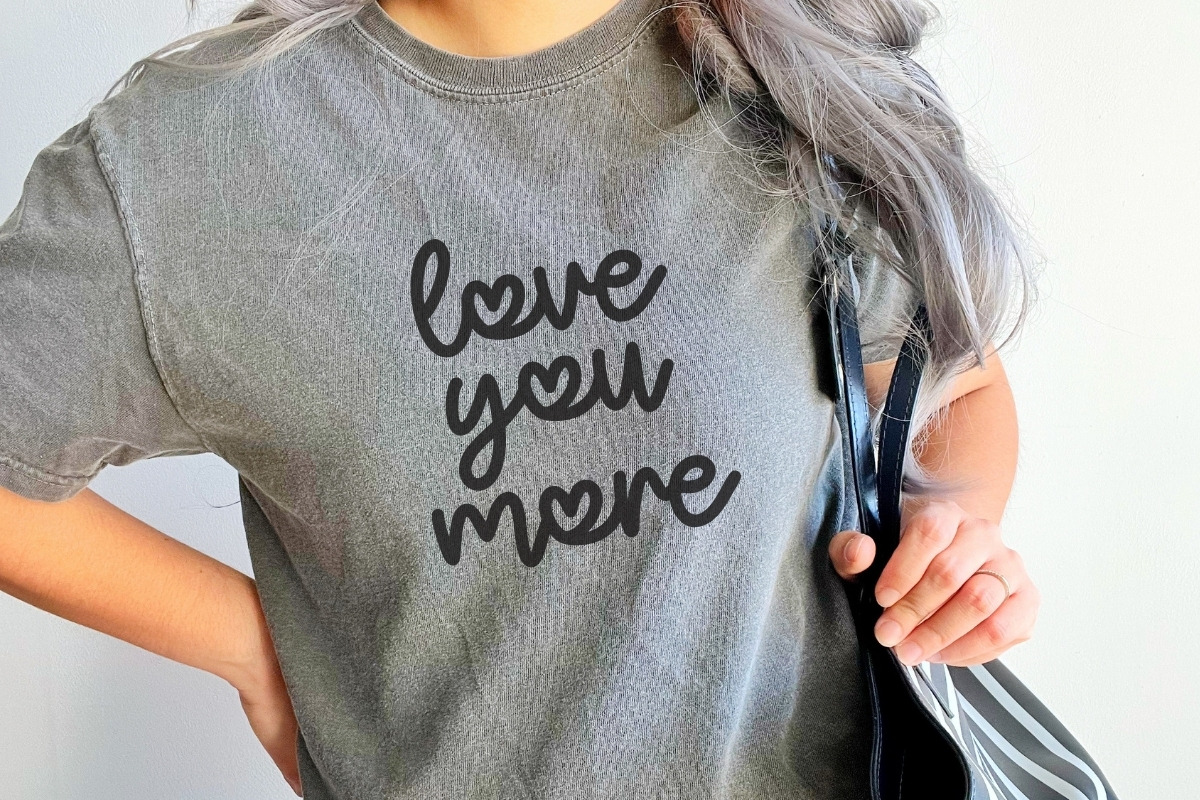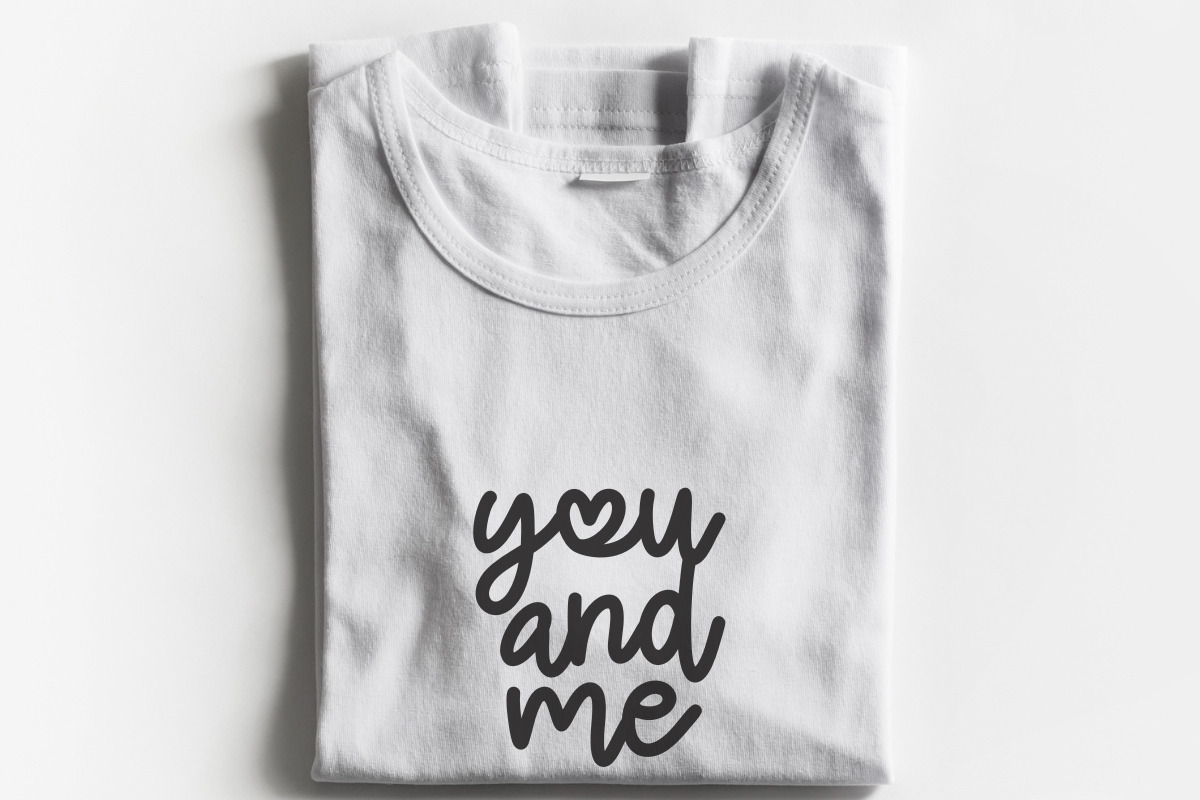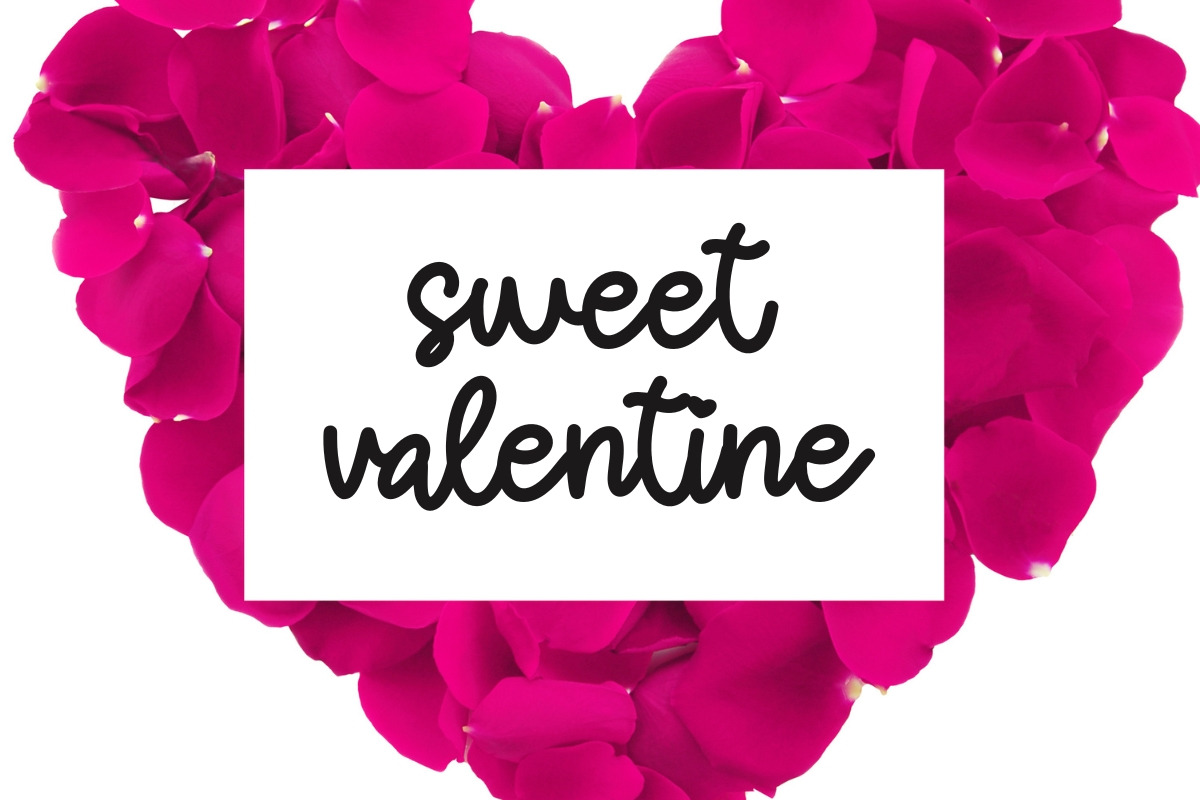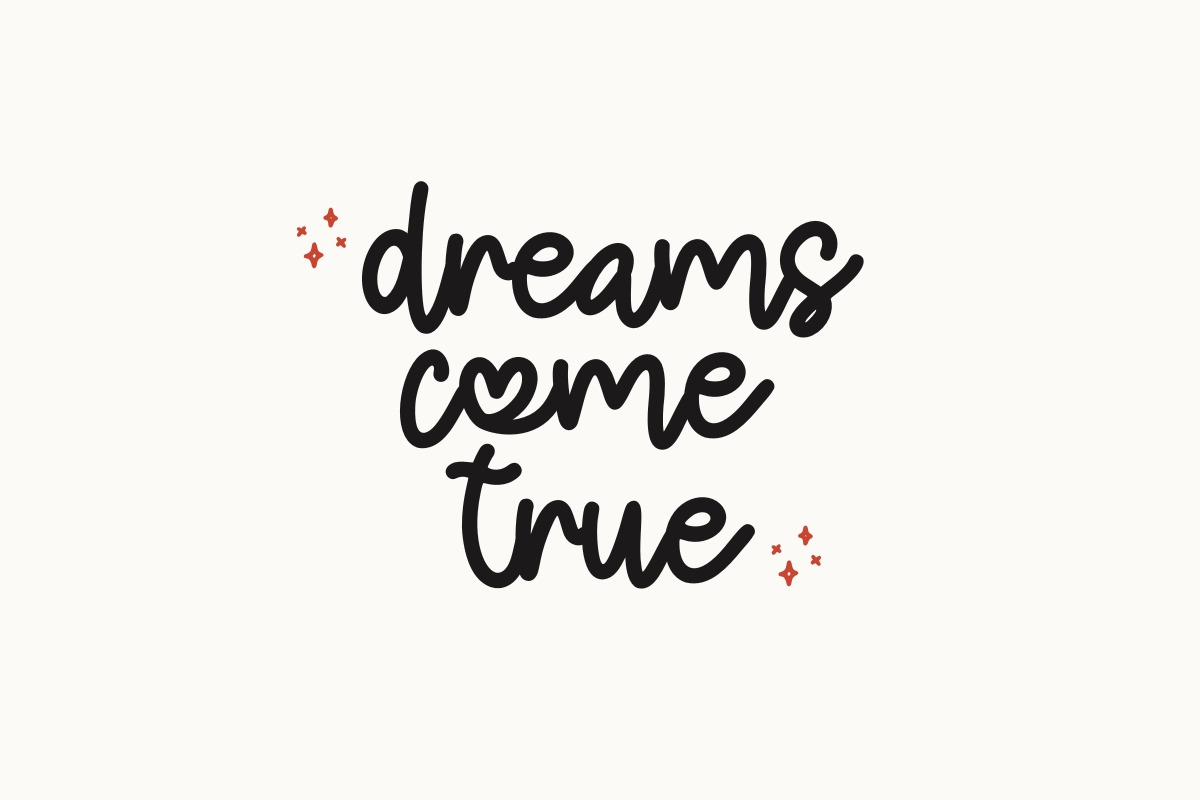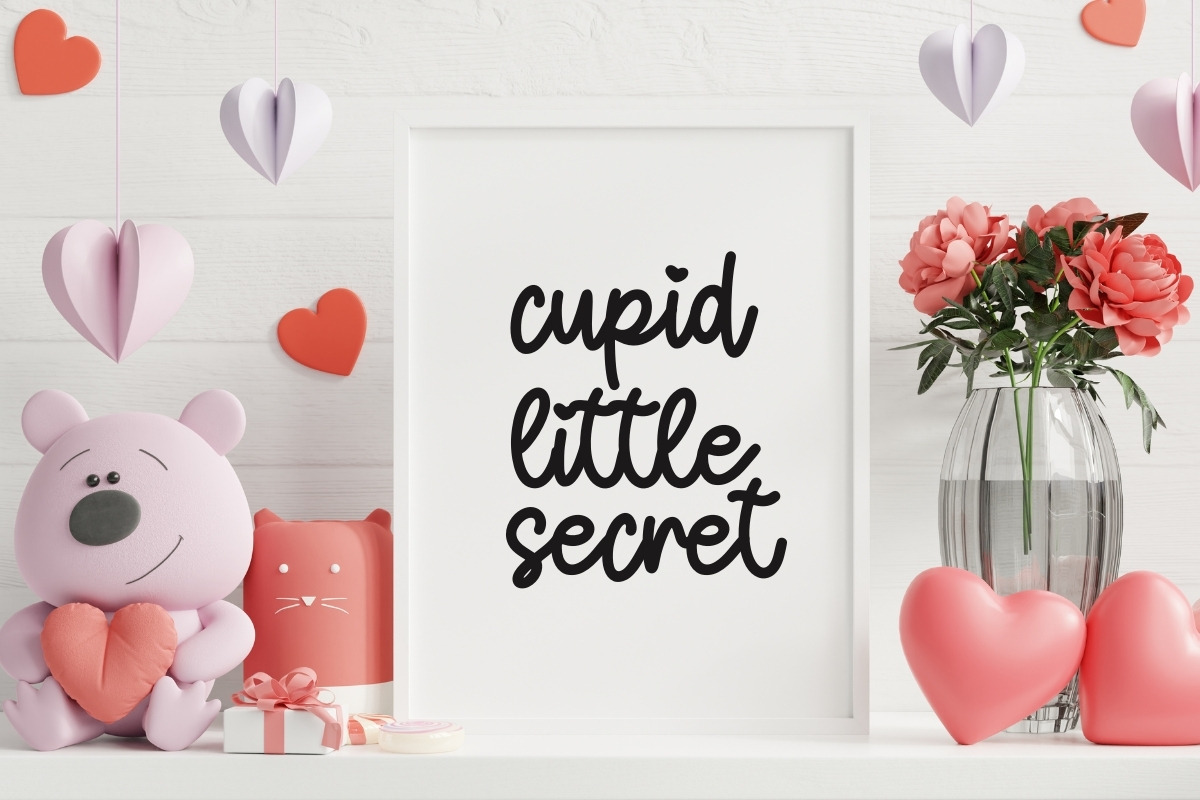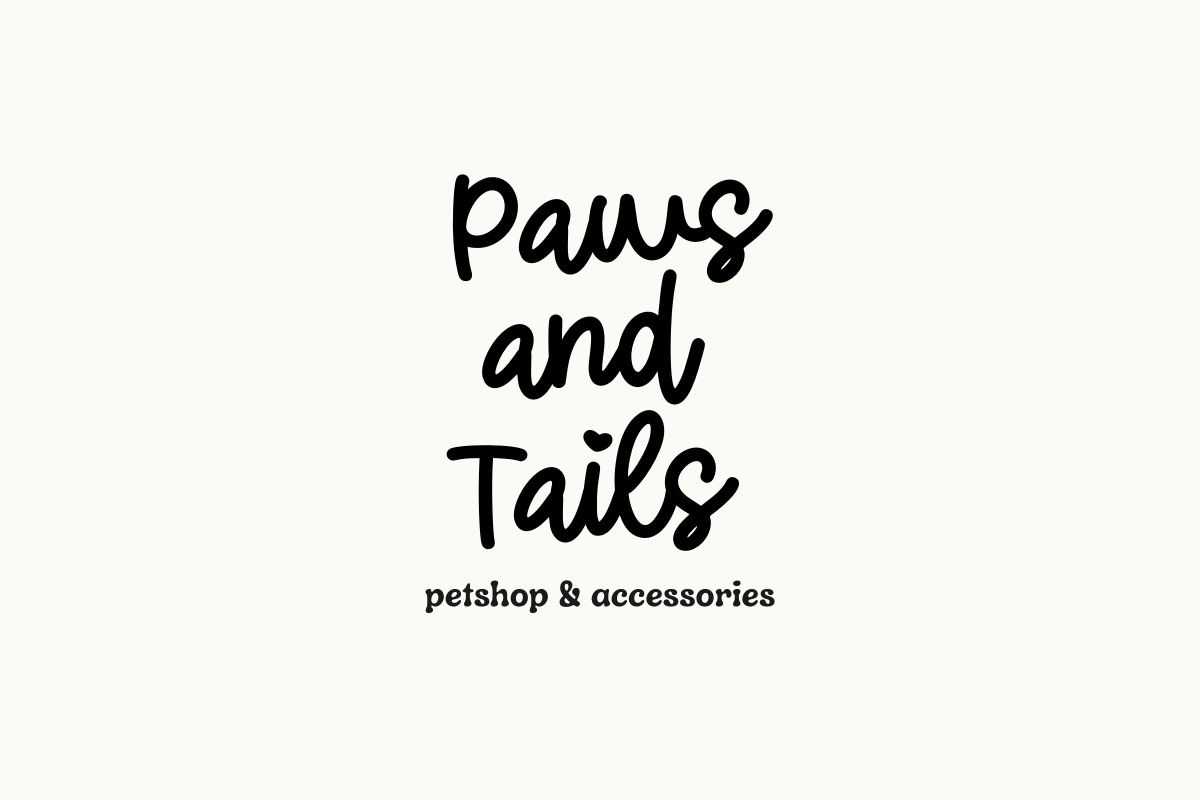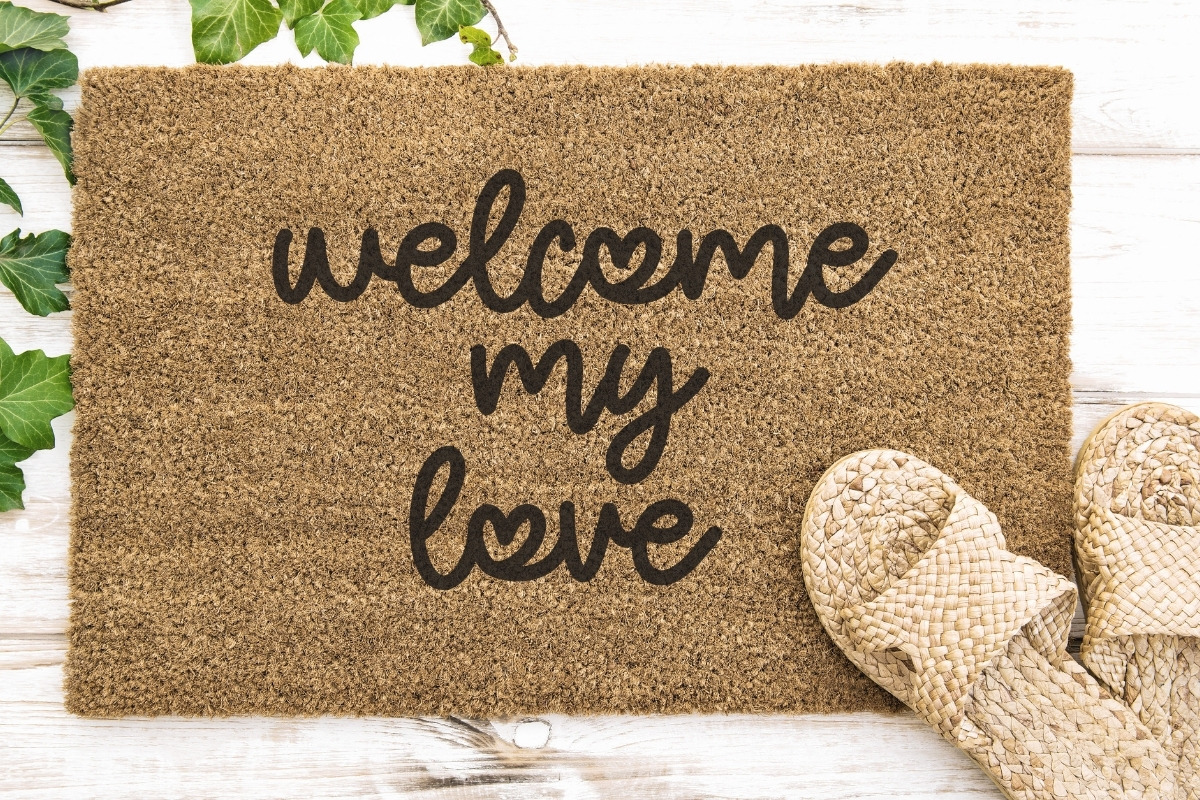
Peachy Romance - Cute Lovely Script
Peachy Romance is a delightfully cute lovely script that exudes warmth, charm, and casual elegance. This gorgeous handwritten font features smooth, flowing lines and a decorative heart alternate, making it perfect for wedding invitations, sweet Valentine's Day crafts, charming feminine logos, heartfelt greeting cards, and cozy social media posts. Its excellent readability and attractive style make it a strong display typeface for branding, product packaging, and any design that needs a touch of modern romance. Capture all the sweet moments with this truly lovely and modern script font!